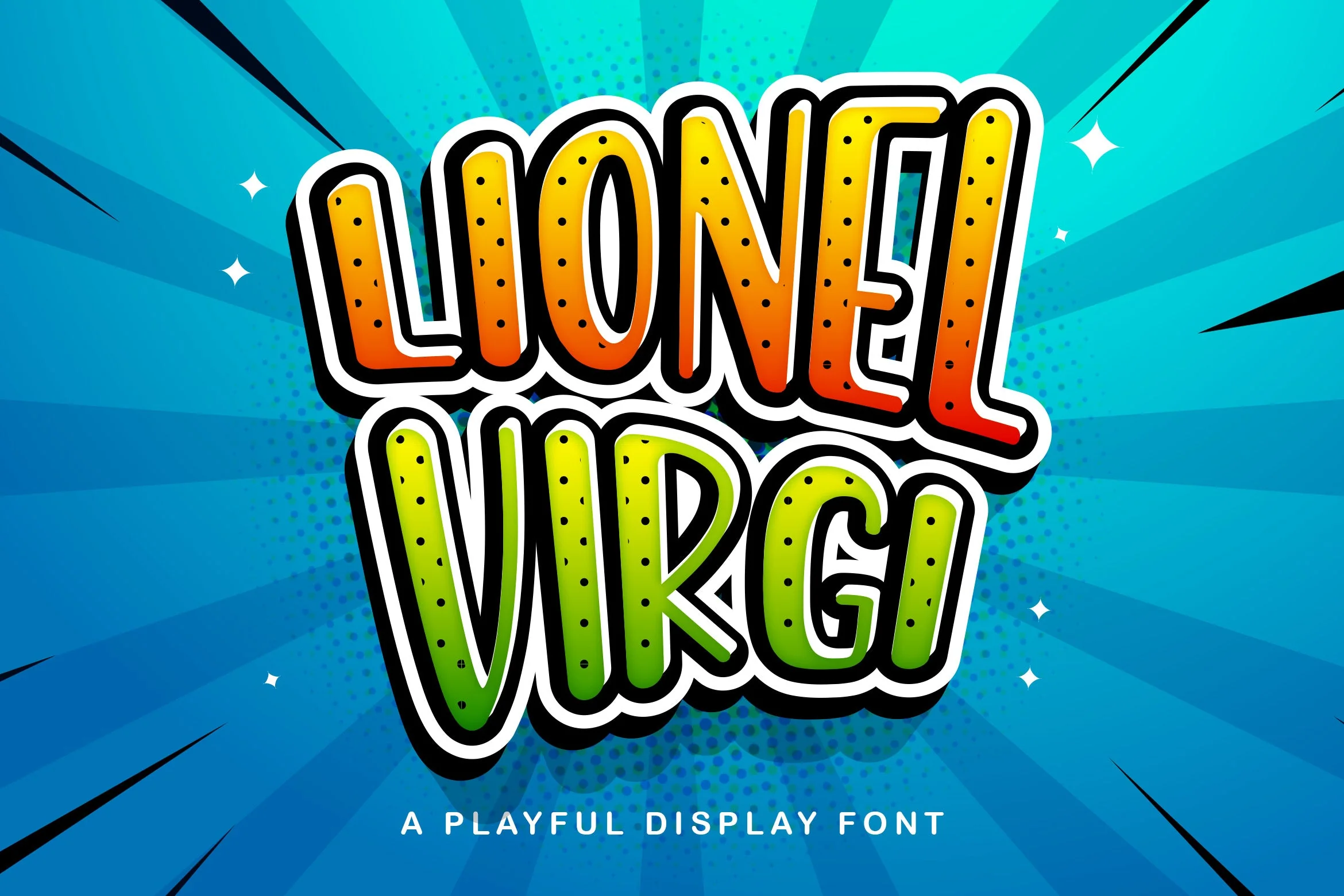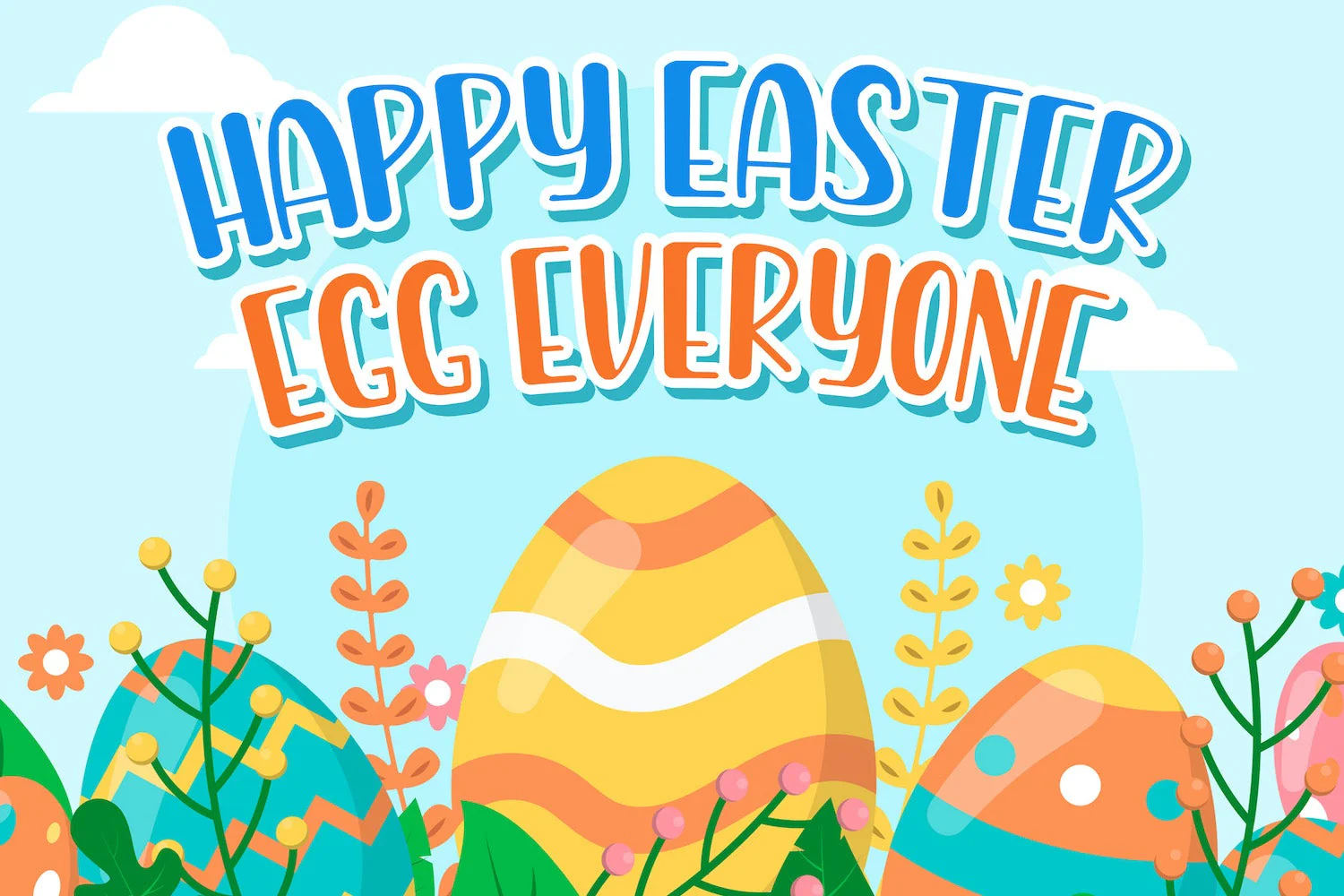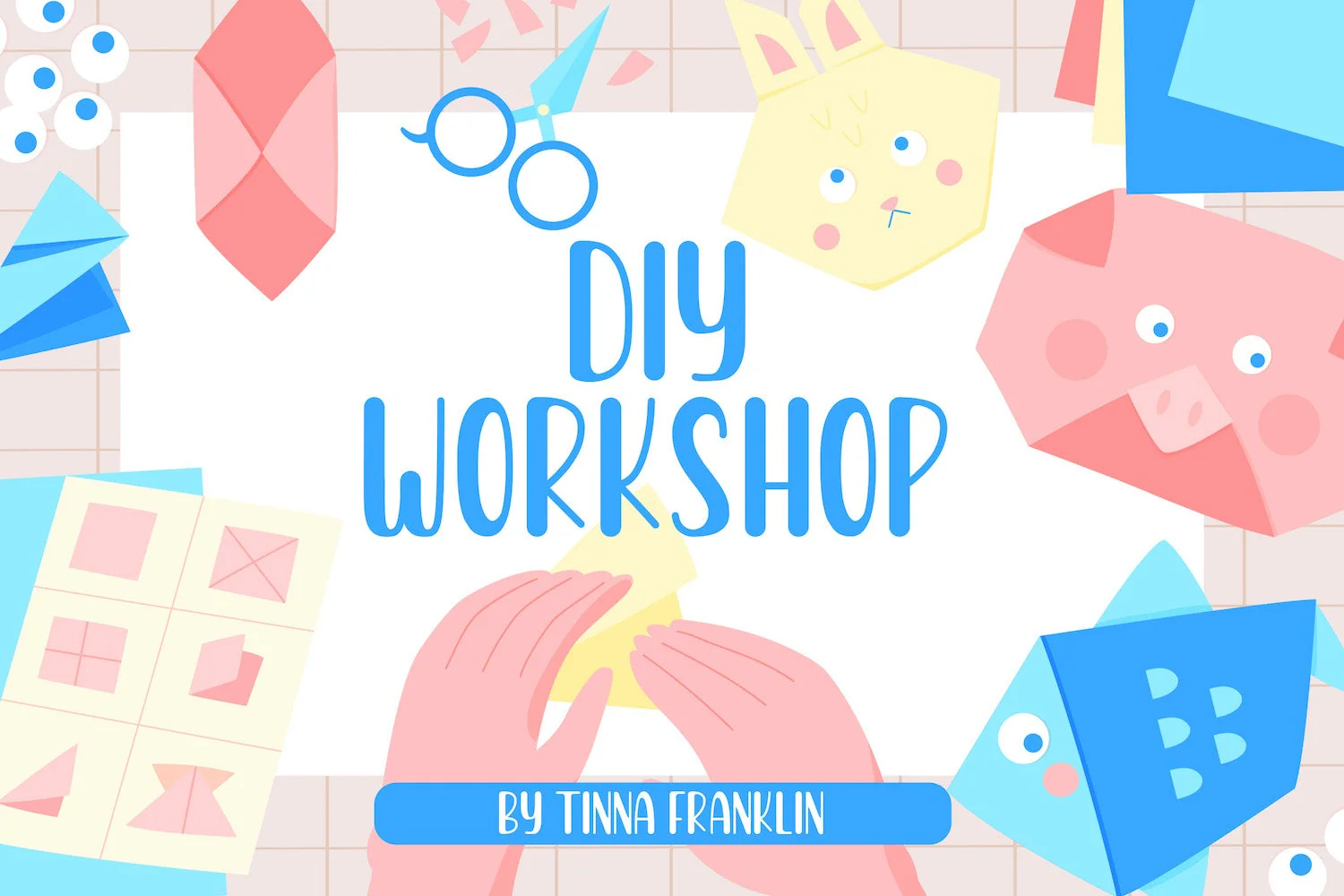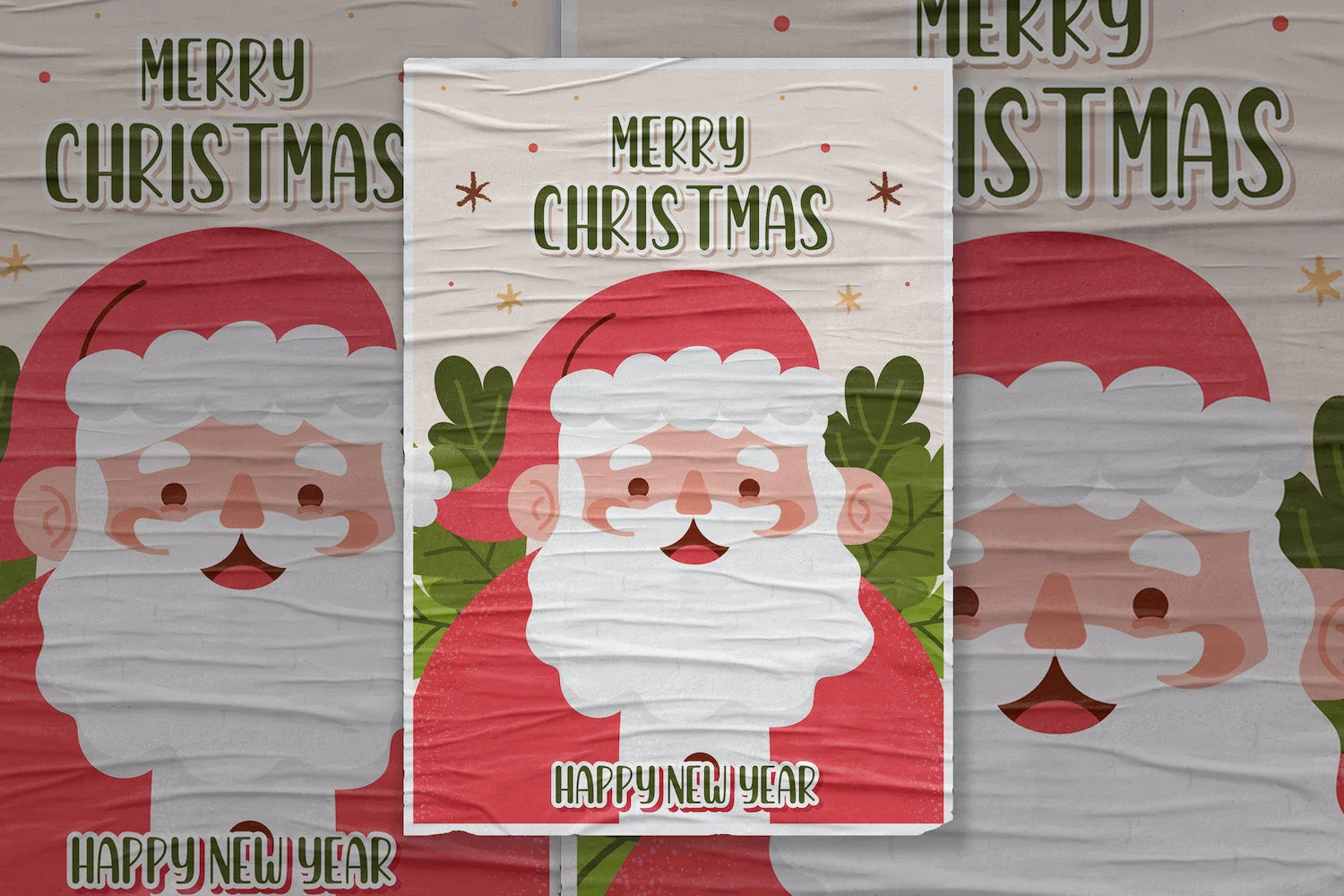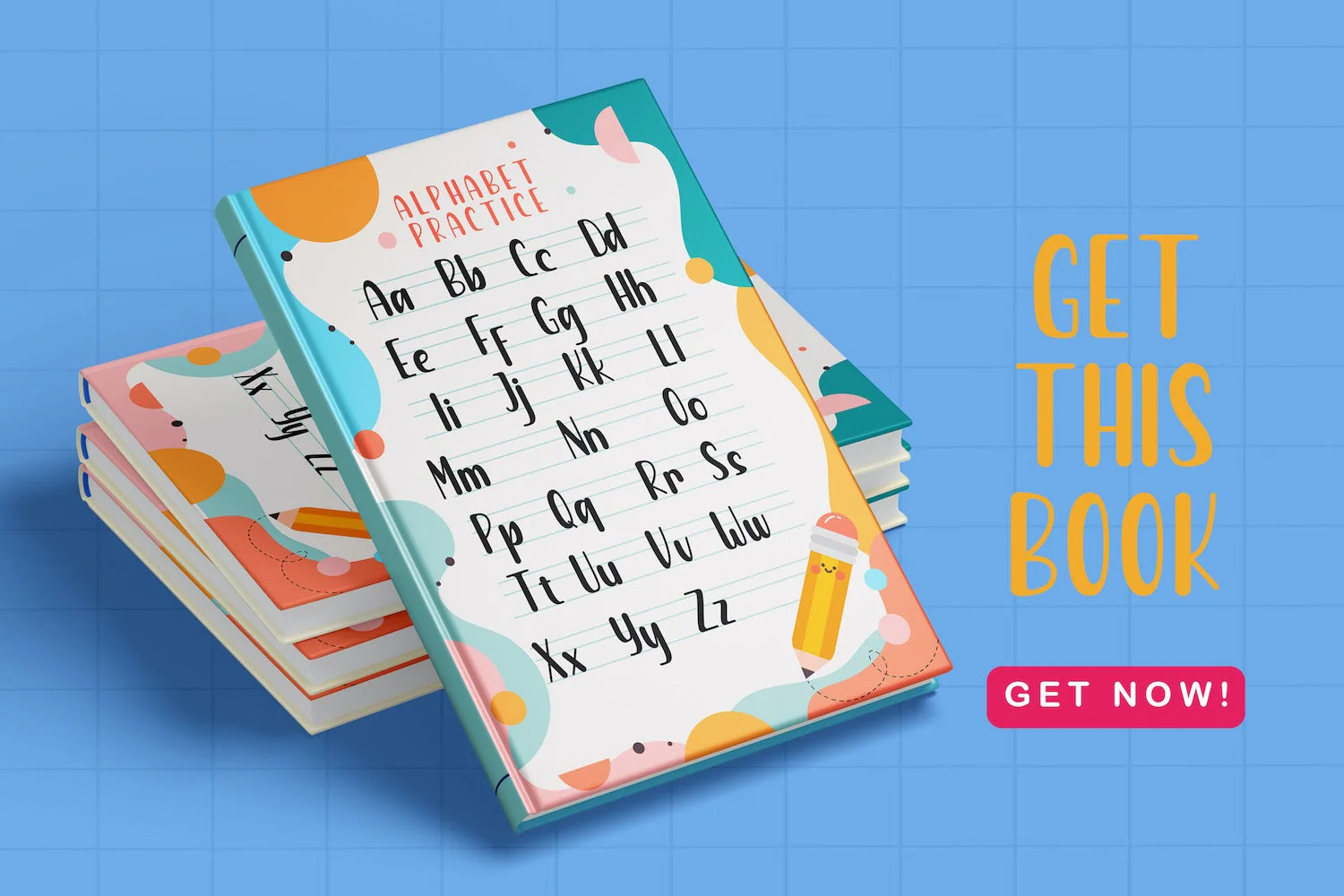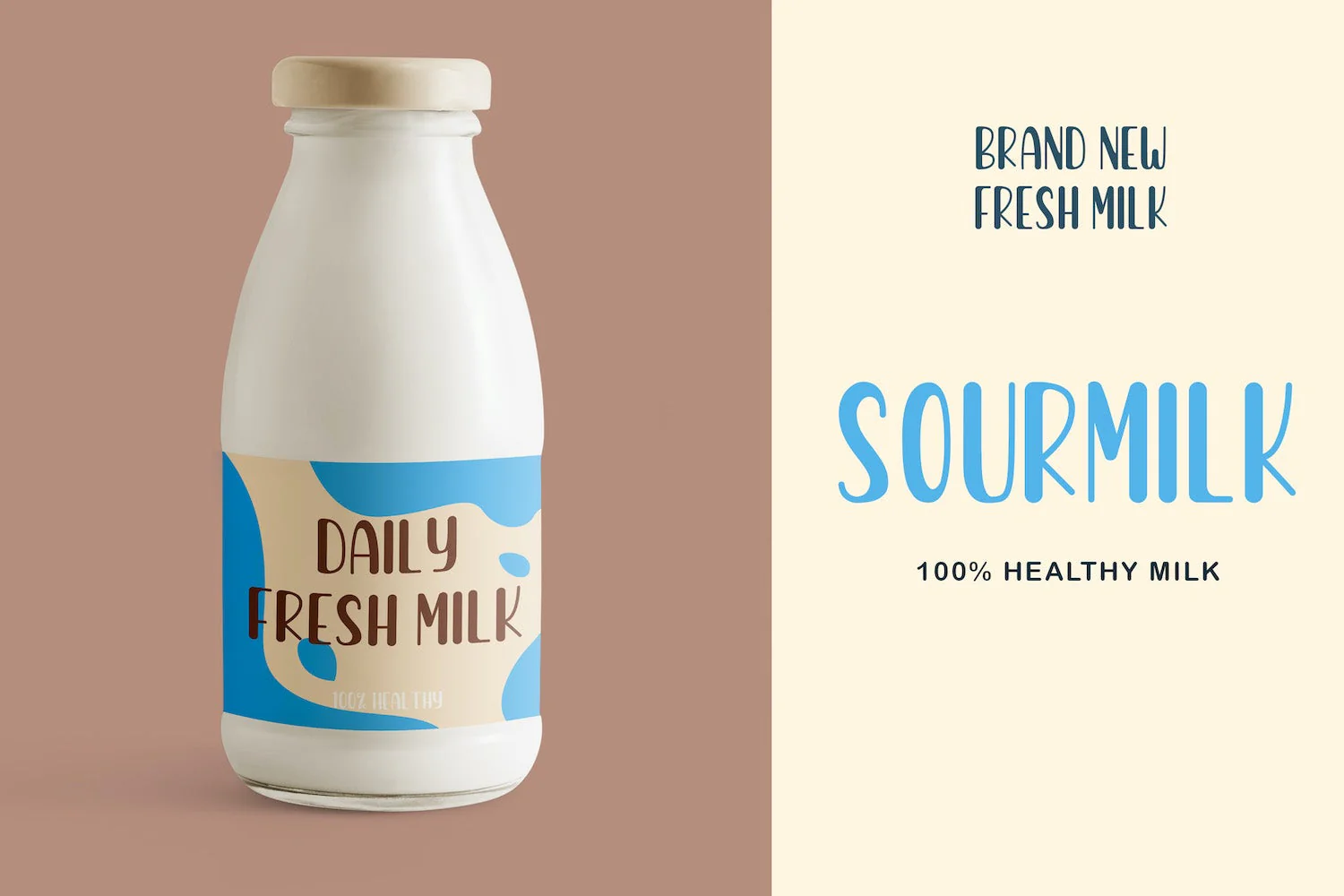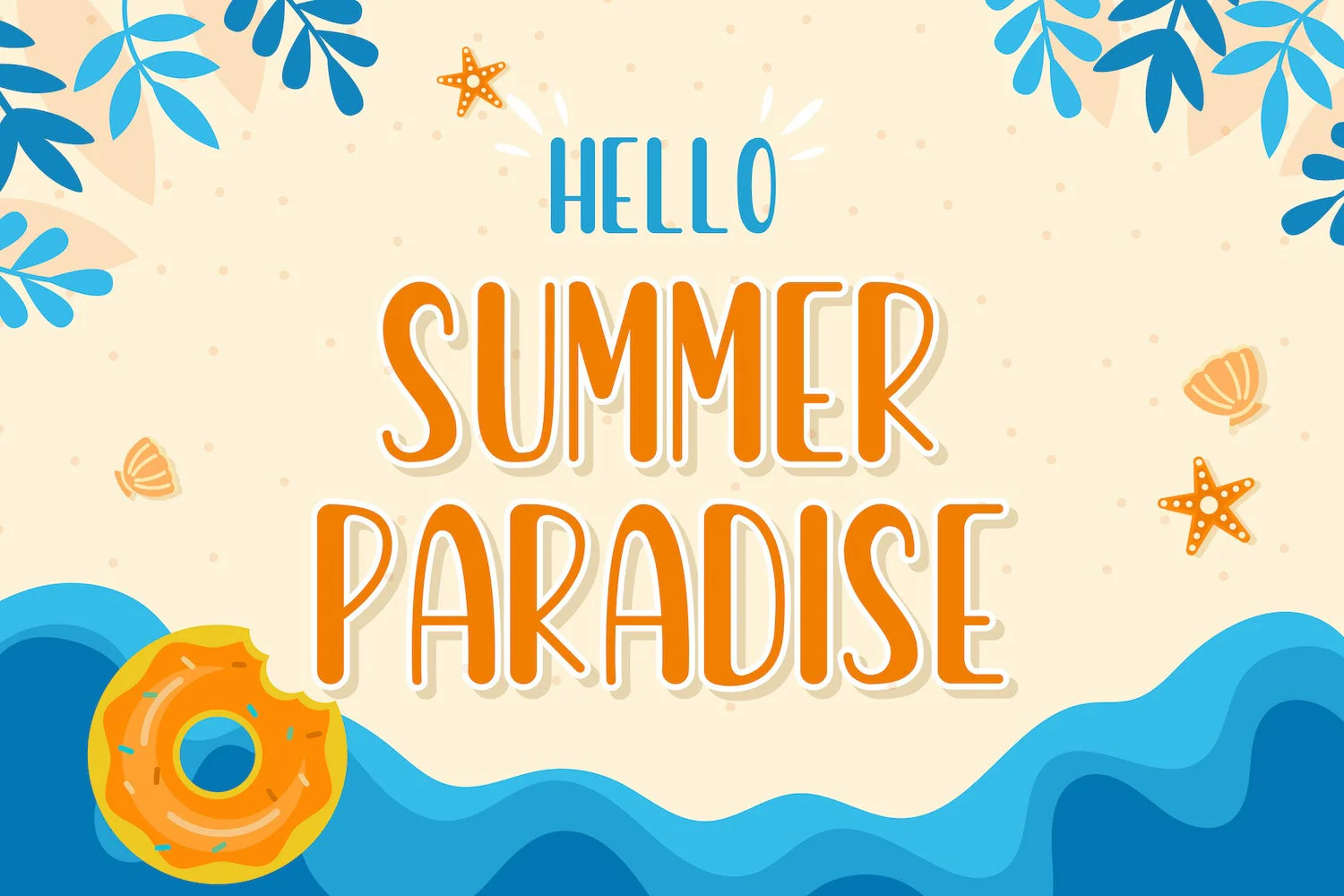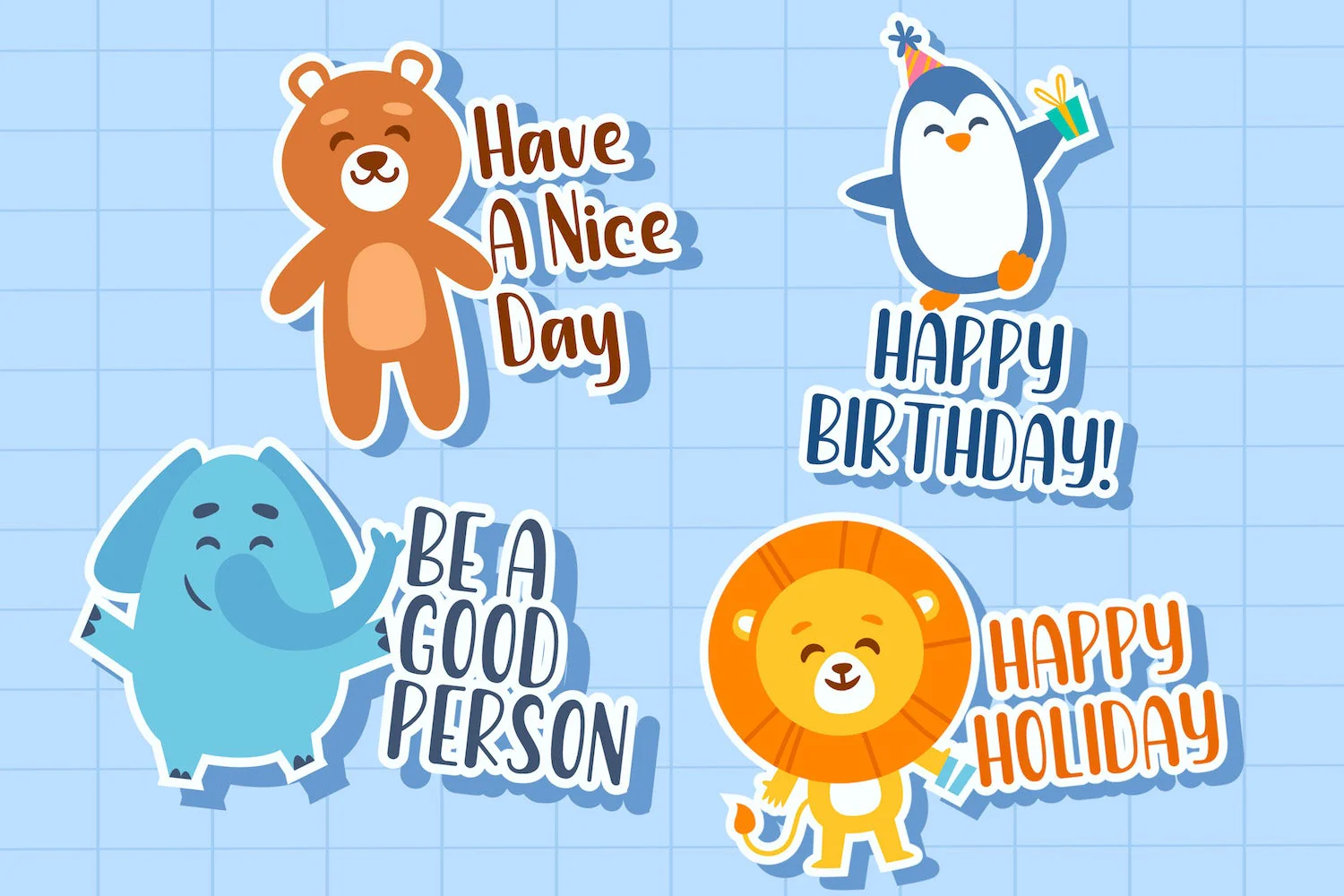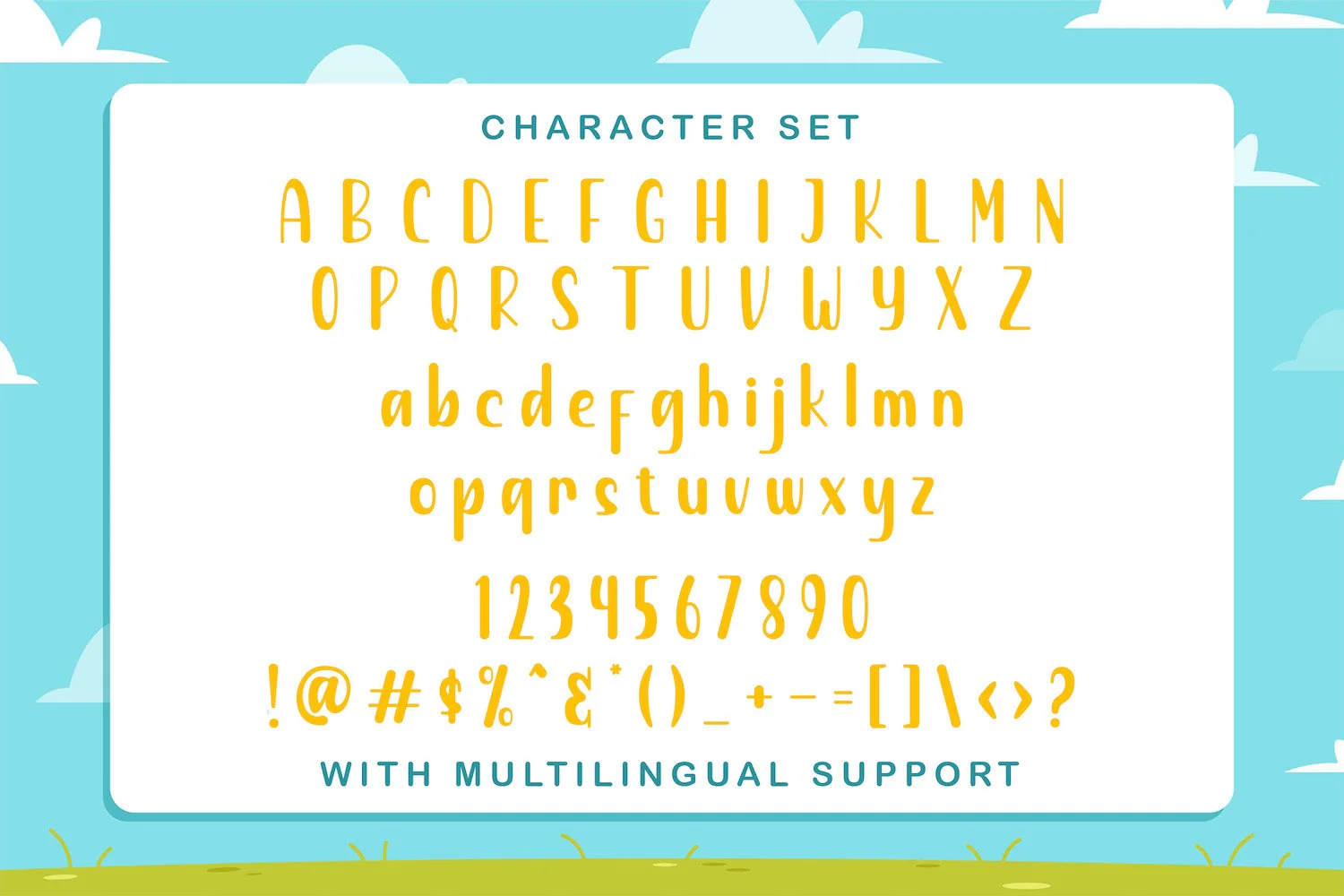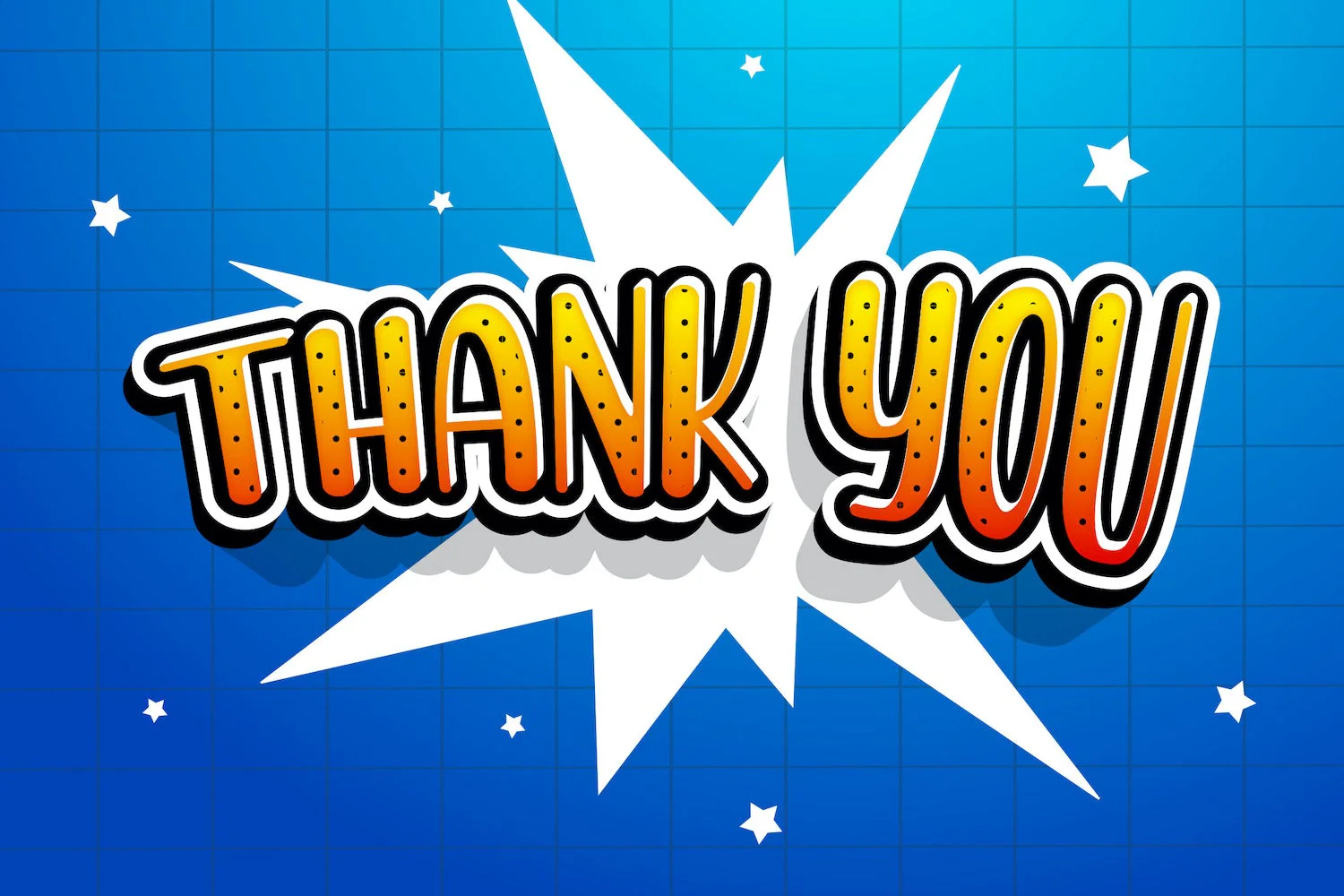
LIONEL VIRGI - Playful Display Font
Introducing LIONEL VIRGI - Playful Display Font
LIONEL VIRGI is a fun display font. Playful and fresh, this font will be a hit for each of your children or school projects!
Introducing LIONEL VIRGI - Playful Display Font
LIONEL VIRGI is a fun display font. Playful and fresh, this font will be a hit for each of your children or school projects!